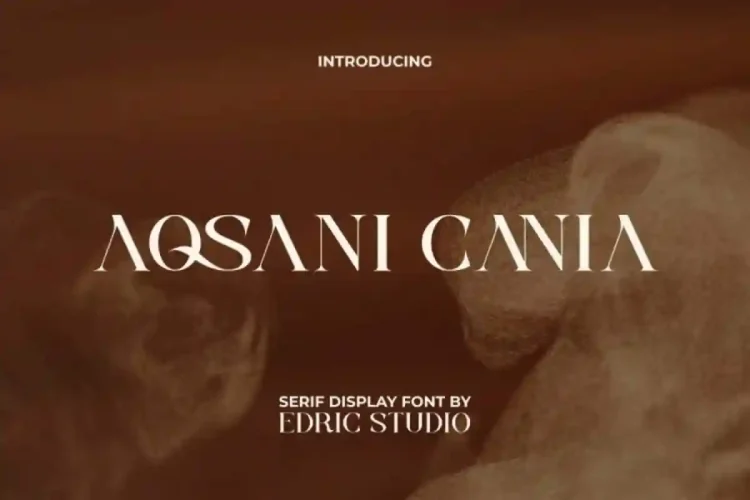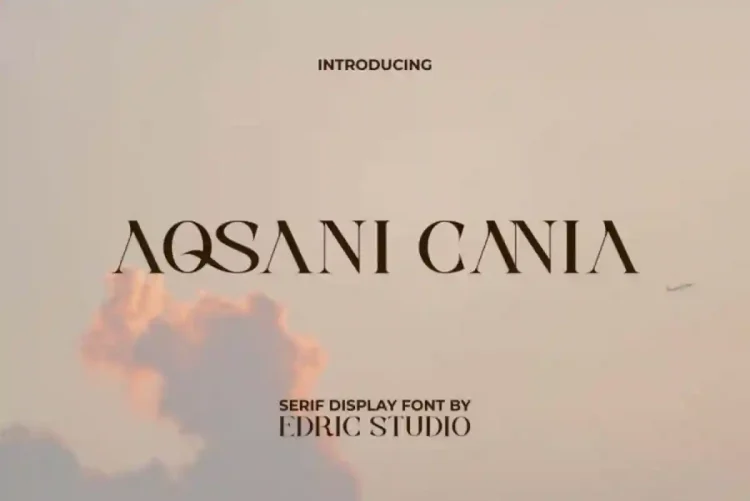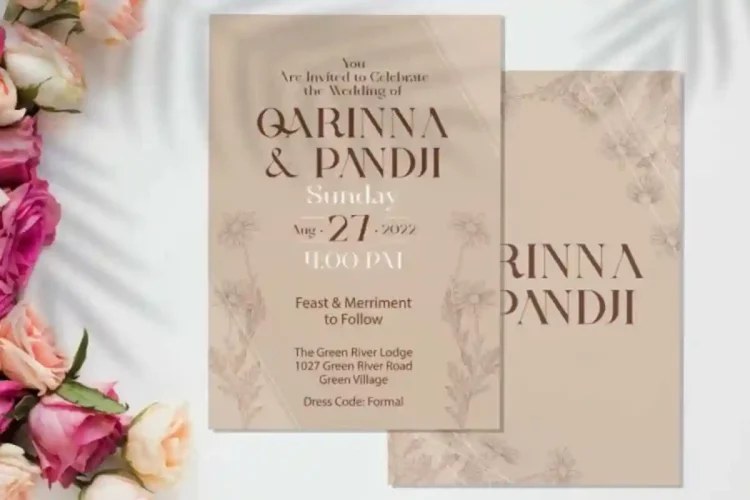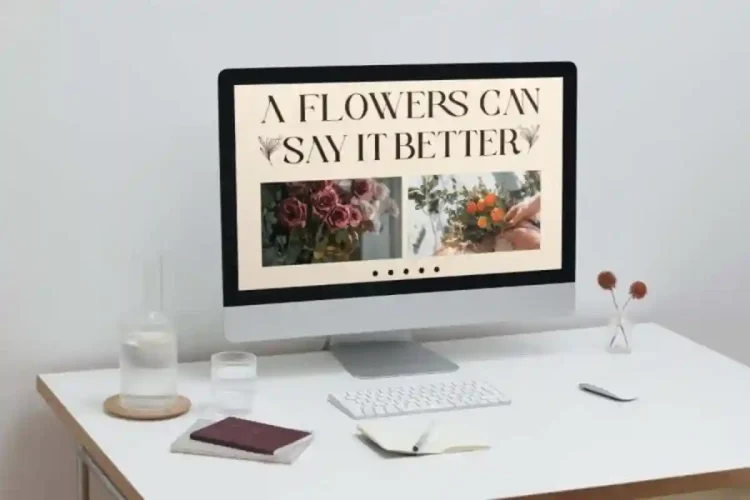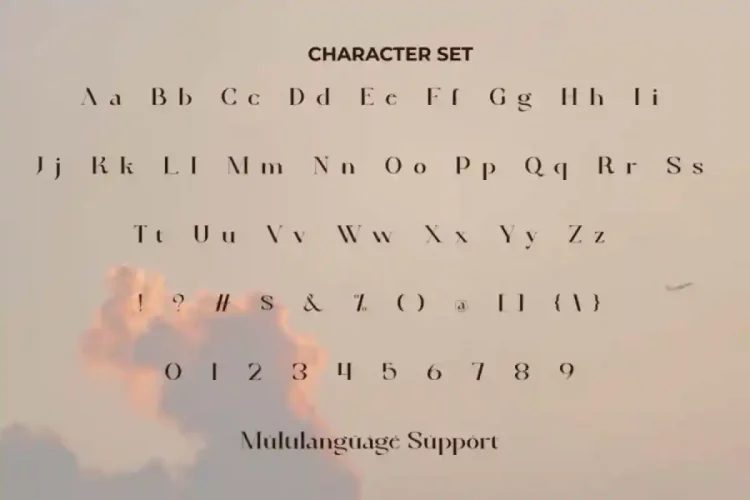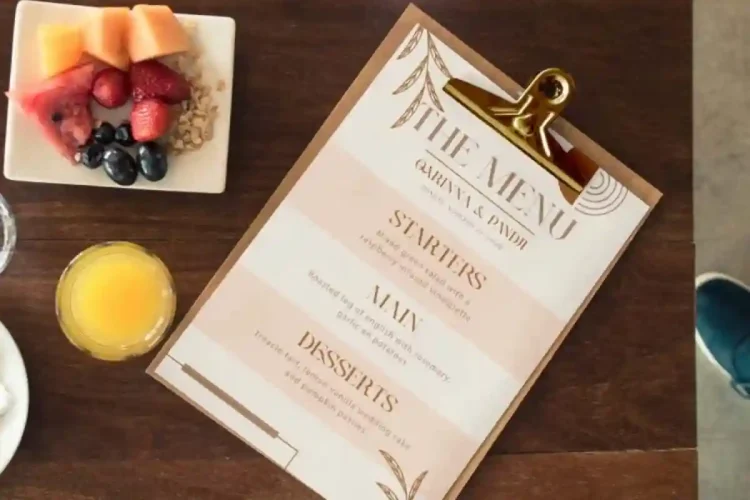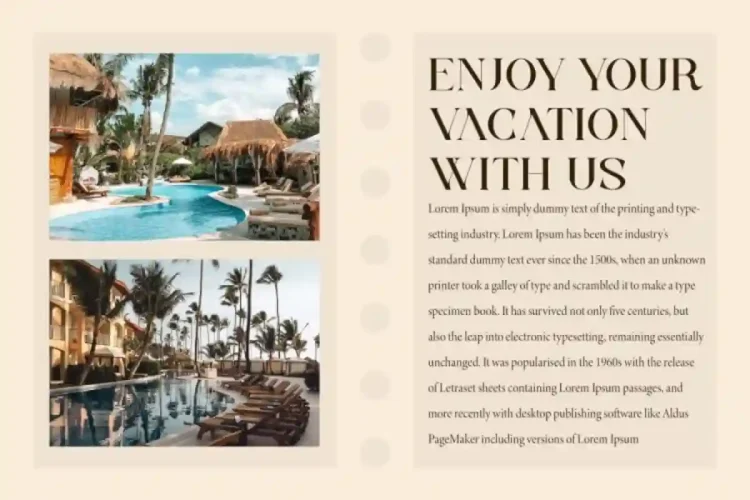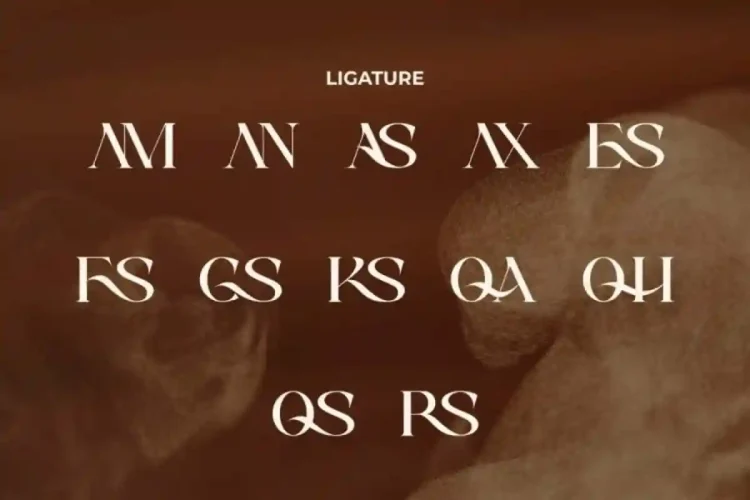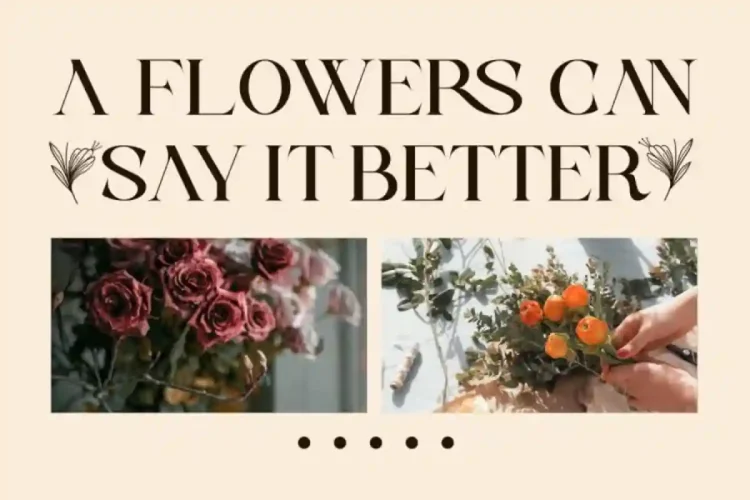
Aqsani Cania Modern Display Font
Aqsani Cania Modern Font is a beautiful serif display font created by Edric Studio. With its clean lines, graceful curves, and professional look, this font is the perfect choice for designers seeking elegance combined with versatility.
Aqsani Cania Display Font comes with a complete set of Uppercase and Lowercase Letters, Numbers, Punctuation, Symbols and Ligature. This font combines the characteristics of a sleek and exotic serif font that is beautifully crafted and will stun in any design. Perfect for advertising, florist, graphic design, jewelry store, printing, publishing, restaurant, travel, wedding, and much more.